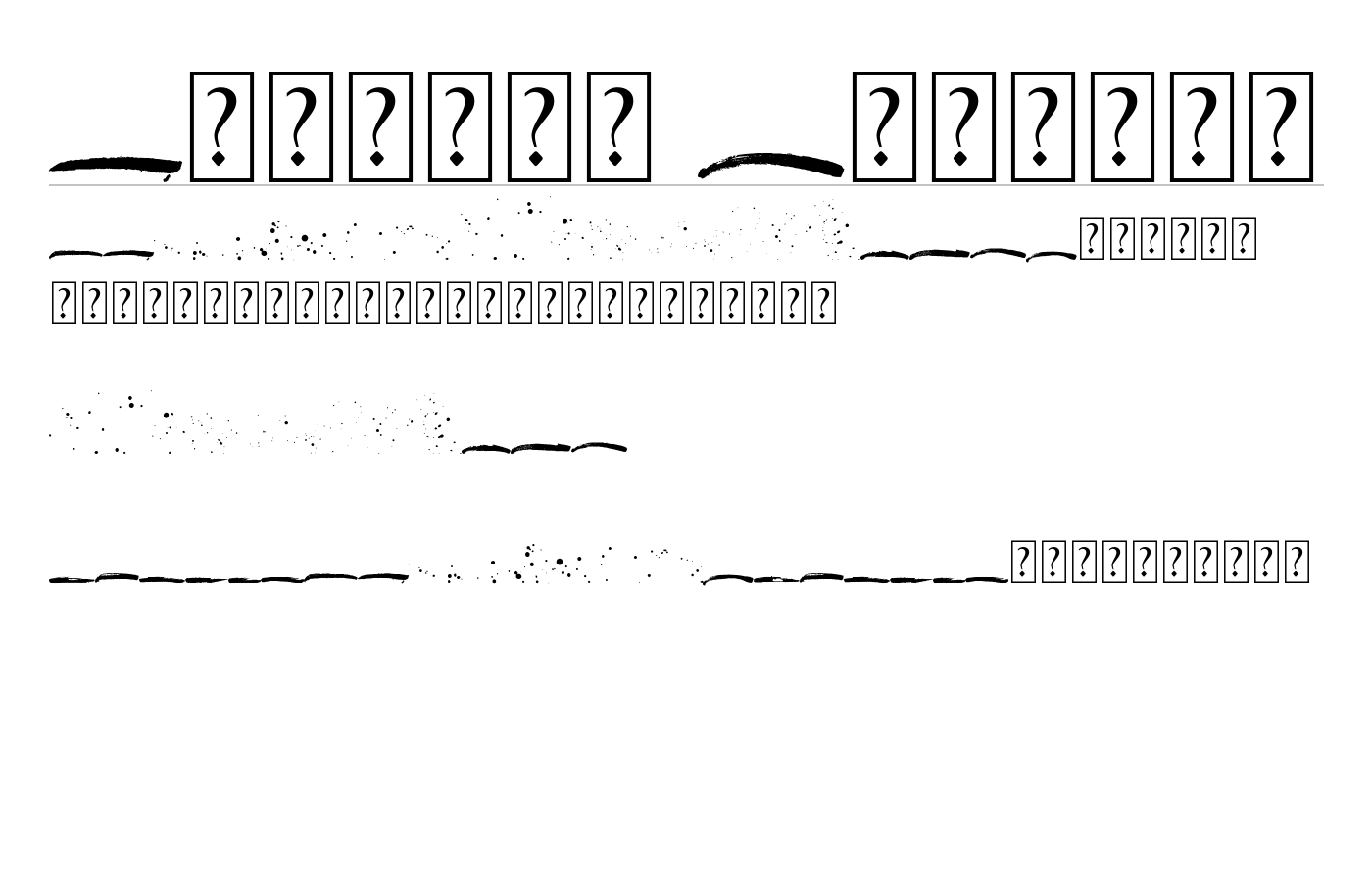
Beranak Swashes is a decorative script font characterized by its elegant, flowing strokes and dynamic swashes that add a handcrafted and artistic flair. Its uneven, brushed texture and playful curves give it a lively and creative personality, making it ideal for designs seeking a personal and expressive touch. This font works beautifully for invitations, branding, logos, and creative projects where a stylish, hand-drawn look is desired.
Beranak Swashes Font